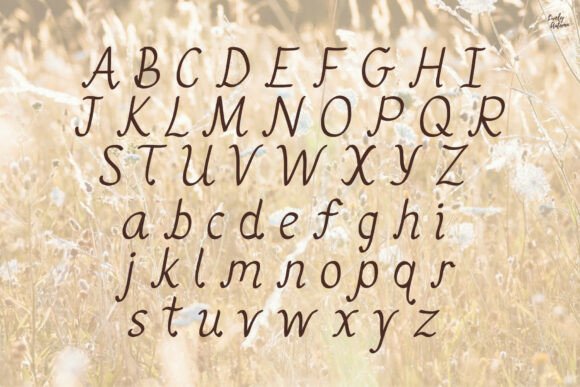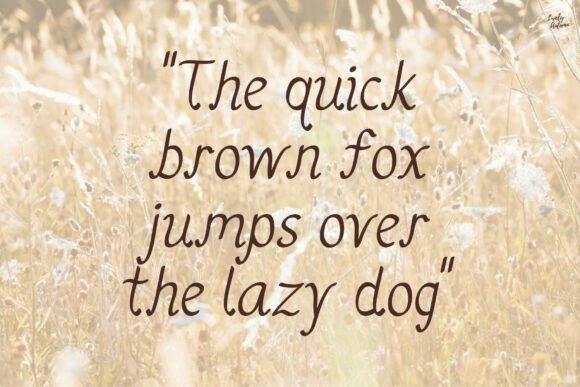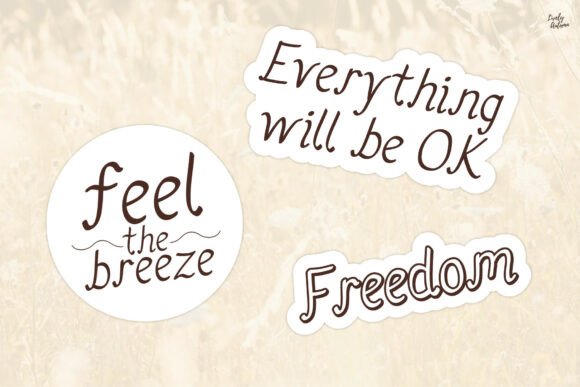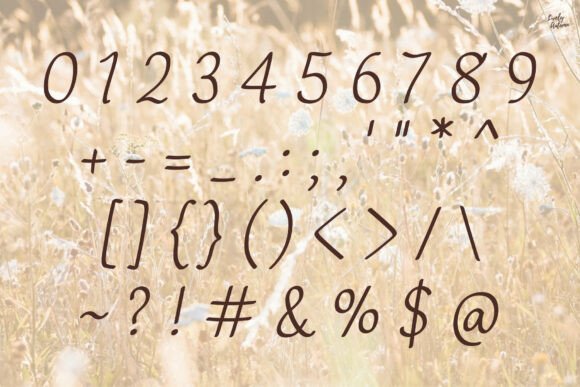
Introducing Golden Breeze Font: The Epitome of Whimsical Elegance
In the realm of typography, few fonts manage to capture the essence of warmth and authenticity as effortlessly as the Golden Breeze font. This soft, handwritten font is reminiscent of a gentle wind on a summer day, bringing with it a sense of calm and serenity. Its slightly whimsical strokes and relaxed curves make it an ideal choice for designers and crafters looking to infuse their projects with a personal, heartfelt touch.
The Characteristics of Golden Breeze Font
Golden Breeze is more than just a font; it’s an experience. Its unique characteristics make it stand out in the world of typography:
- Soft and Handwritten: The font’s soft, handwritten quality gives it a personal and approachable feel, perfect for designs that require a human touch.
- Slightly Whimsical Strokes: The whimsy in its strokes adds a touch of playfulness and elegance, making it versatile for various design applications.
- Relaxed Curves: The relaxed curves of Golden Breeze contribute to its warm and inviting appearance, evoking feelings of comfort and ease.
Ideal Uses for Golden Breeze Font
The versatility of Golden Breeze font makes it suitable for a wide range of design projects. Here are some of the ideal uses for this beautiful font:
- Nature-Themed Designs: The font’s organic and flowing feel makes it a perfect match for nature-themed designs, such as eco-friendly branding, floral patterns, and outdoor event invitations.
- Invitations: Whether it’s a wedding invitation, a baby shower, or a birthday party, Golden Breeze adds a touch of elegance and warmth to any invitation.
- Quotes and Typography: The font’s unique style brings a new level of depth and emotion to quotes and typographic designs, making them more impactful and engaging.
- Packaging: For brands looking to stand out on the shelves, Golden Breeze can add a personal touch to product packaging, making it more relatable and appealing to customers.
- Branding: Brands that aim to convey a sense of warmth, authenticity, and approachability can greatly benefit from using Golden Breeze in their branding materials.
Why Designers and Crafters Love Golden Breeze Font
Designers and crafters around the world have fallen in love with Golden Breeze font for several reasons:
- Emotional Connection: The font helps create an emotional connection with the audience, making designs more relatable and engaging.
- Versatility: Its versatility means it can be used in a variety of projects, from digital designs to print materials.
- Ease of Use: Despite its elegant appearance, Golden Breeze is easy to use and pairs well with a wide range of other fonts.
- Uniqueness: In a sea of standard fonts, Golden Breeze stands out for its unique and distinctive style, allowing designers to create truly one-of-a-kind designs.
Tips for Using Golden Breeze Font Effectively
To get the most out of Golden Breeze font, consider the following tips:
- Pair with Complementary Fonts: While Golden Breeze is beautiful on its own, pairing it with complementary fonts can enhance its beauty and create visually appealing designs.
- Experiment with Colors: The font looks great in various colors, especially those that are warm and earthy, but don’t be afraid to experiment with different color palettes to find the perfect match for your design.
- Play with Sizes: Using different sizes of Golden Breeze can add depth and interest to your designs, making them more dynamic.
In conclusion, Golden Breeze font is a beautiful addition to any designer’s toolkit. Its unique blend of whimsy, elegance, and warmth makes it perfect for a wide range of projects. Whether you’re a professional designer or a crafter, Golden Breeze is sure to inspire your creativity and help you create designs that resonate with your audience.